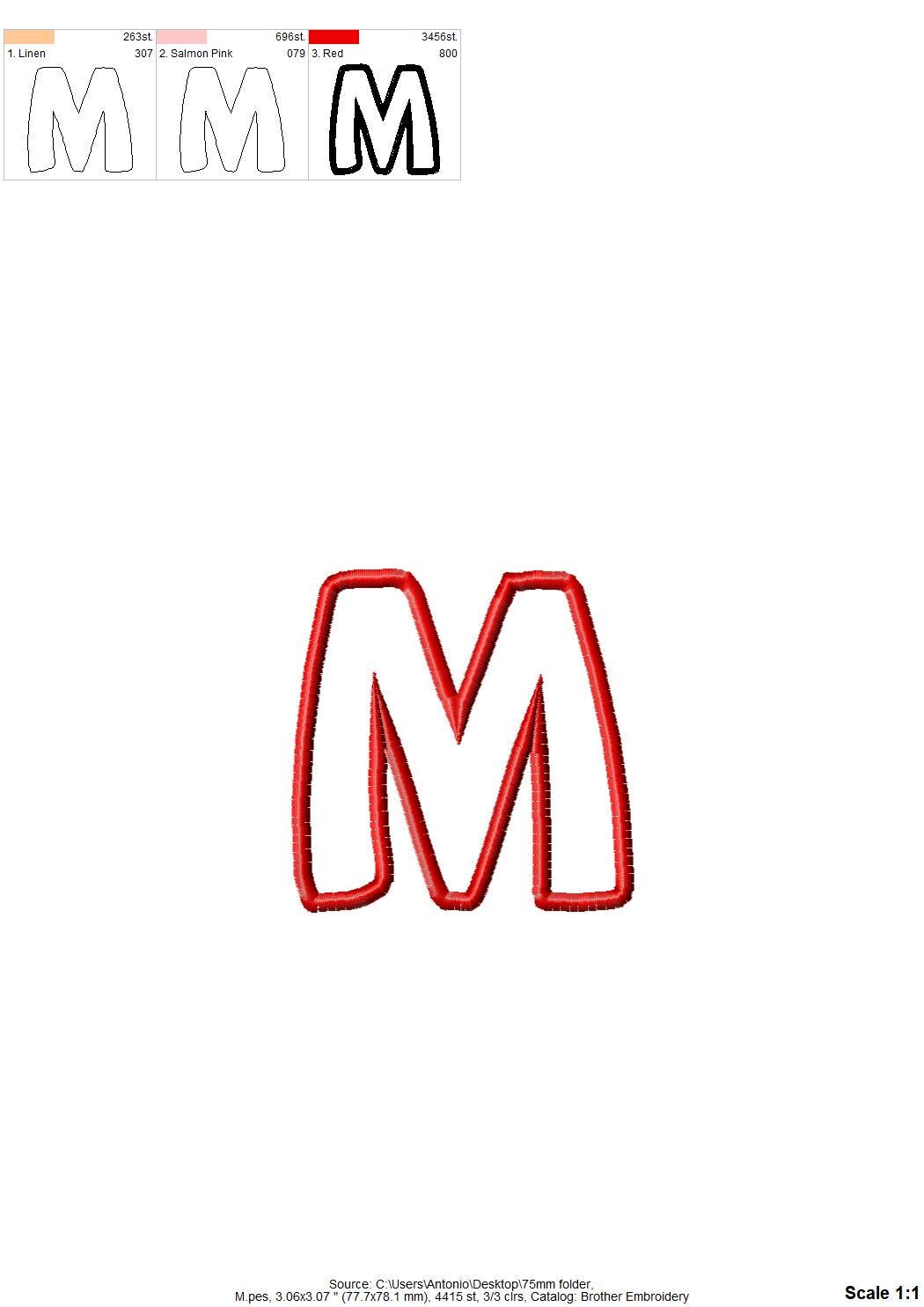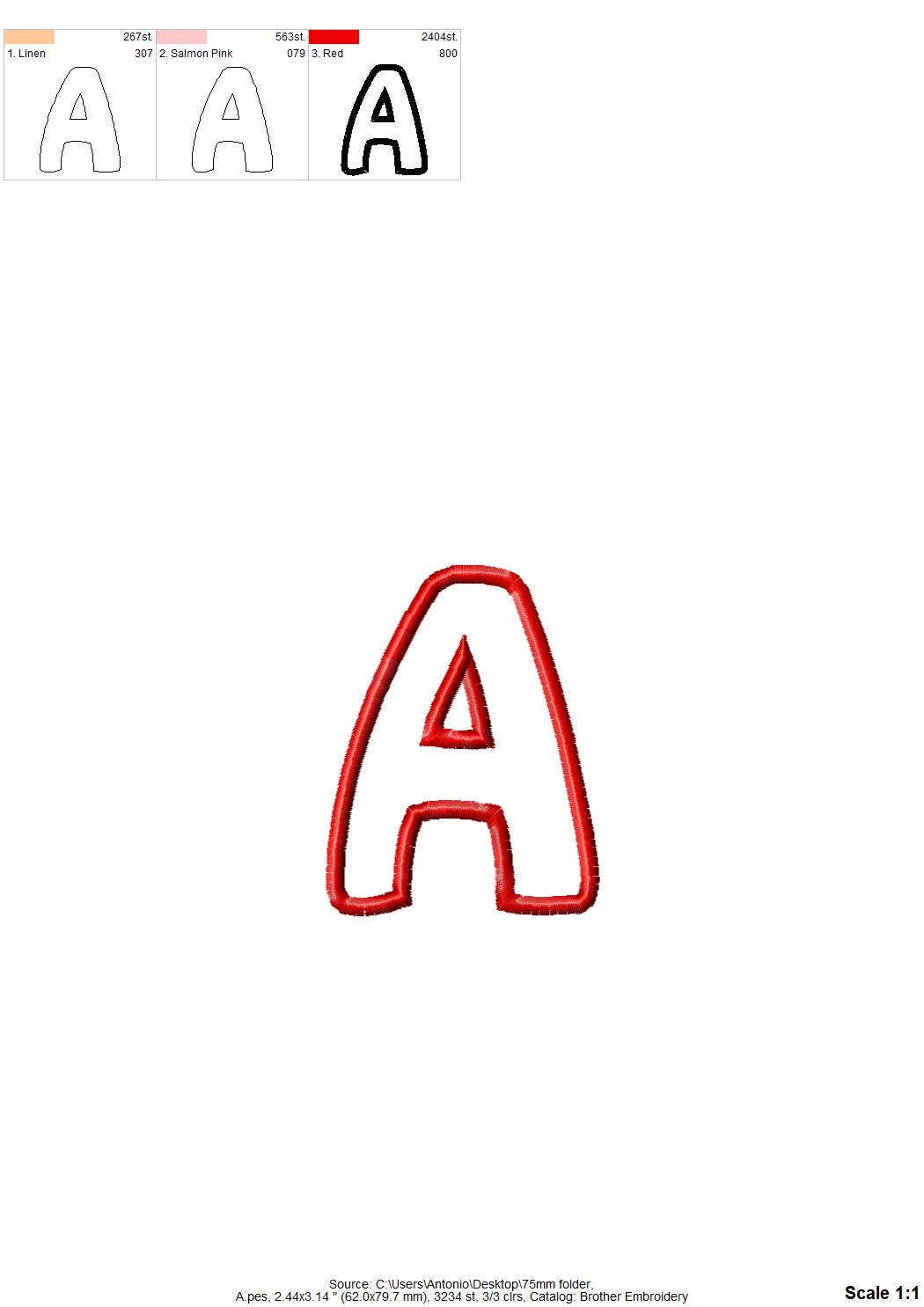
Monogram applique Font machine embroidery designs alphabet rounded letters satin outline many sizes 1.5 up to 4.5 inch and BX
Uppercase and lowercase letters.